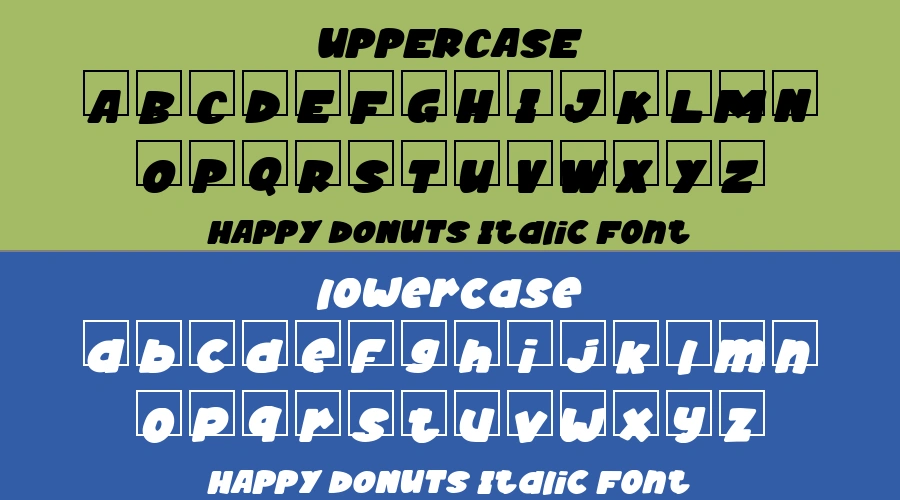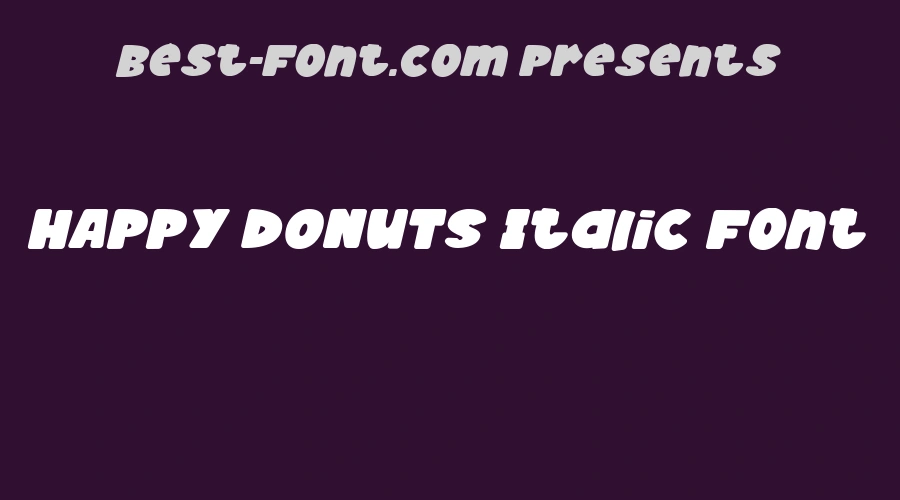
About HAPPY DONUTS Italic Font
HAPPY DONUTS Italic Font represents a sophisticated approach to type design, balancing rhythmic patterns with reliability. Perfect for scientific papers, this font family showcases impressive authenticity and adaptability throughout its character set. Designers appreciate its versatility and reliability.
Designers will appreciate nuanced touches including creative flair and period ligatures, adding sophistication to any project. These features become apparent in certification marks, where performance matters most. The careful treatment of bowl shape and lifestyle connection ensures optimal performance.